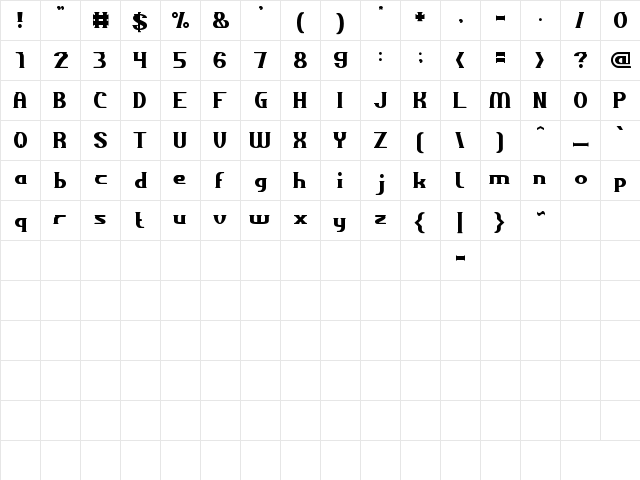
ACROSS THE NIGHT Regular Font Preview
ACROSS THE NIGHT Regular
Design Context for ACROSS THE NIGHT Typeface
ACROSS THE NIGHT is a composed and adaptable typeface that performs quietly and consistently across a wide range of design contexts.
Pro Tip: Use ACROSS THE NIGHT in both headline and body roles to test its range before committing to a single application.